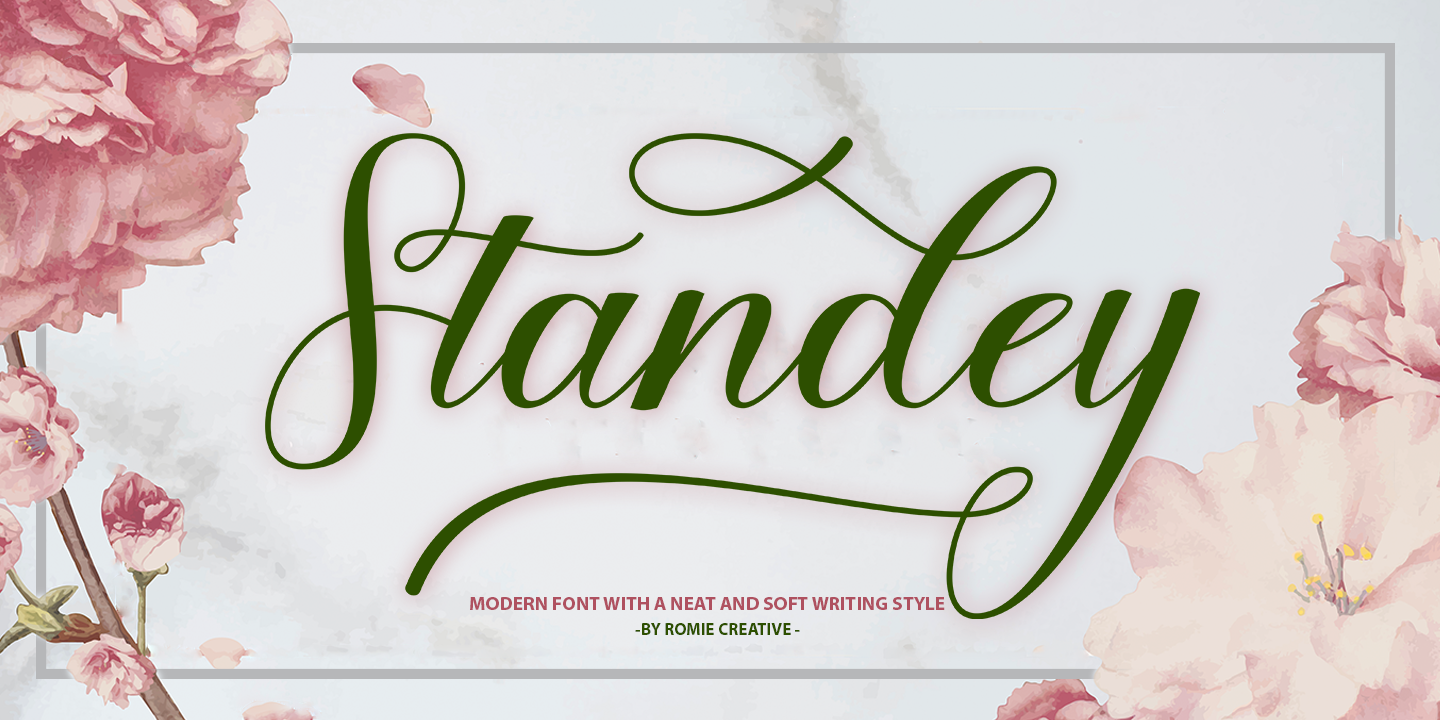
Standey Script Font is perfect for elegant personal branding, sophisticated wedding stationery, luxury boutique signage, premium beauty product packaging, refined restaurant identities, graceful event planning materials, stylish fashion labels, and distinctive signature designs.
Standey Script Font is exciting because it captures the perfect balance of contemporary elegance and classic script artistry through its flowing character design that embodies the sophisticated charm of handwritten calligraphy and the timeless appeal of personalized lettering. Its script styling and refined appeal make it the perfect choice for brands that want to communicate distinction, elegance, and the personal touch of handcrafted excellence.
Standey Script Font family includes multiple elegant variations: Standey Script Regular, Standey Script Bold, Standey Script Light, Standey Script Flourish, Standey Script Ornate, and Standey Script Classic, along with decorative swashes and calligraphic elements, providing designers with comprehensive tools for creating authentic script and sophisticated-themed brand experiences.
When exploring elegant script typography solutions, Standey Script Font Free Download emerges as the premier choice for designers working on luxury and sophisticated projects that require genuine calligraphic sophistication and refined appeal. This distinguished typeface embodies the essence of handwritten artistry while offering the technical precision that contemporary luxury brands and elegant service providers require. The font's script character and calligraphic authenticity create immediate connections with audiences who appreciate handcrafted beauty and personalized sophistication.
Luxury design professionals consistently rely on Standey Script Font for projects requiring authentic script sophistication and powerful elegant appeal. Its expertly crafted letterforms feature calligraphic influences that work exceptionally well in both large-scale luxury retail displays and intimate personal stationery applications. The font's ability to convey grace and handwritten elegance while maintaining strong brand recognition makes it invaluable for comprehensive identity systems in the luxury services, personal branding, and sophisticated lifestyle sectors.
Whether you're developing elegant brand identities, creating luxury service marketing materials, or designing sophisticated personal communications, Standey Script Font delivers the authentic script character and refined appeal that resonates with audiences who appreciate handwritten sophistication and personalized luxury. Its calligraphic significance and graceful design ensure your projects capture the intimate beauty of handcrafted script while maintaining contemporary professional standards that attract discerning luxury consumers and elegant lifestyle enthusiasts.